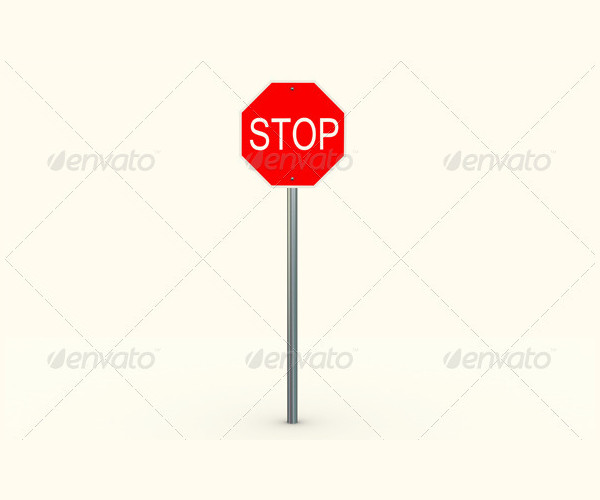
What Font Do Stop Signs Use . What font do stop signs use? There is no need to have a font to write stop on a sign. Any of these will do. Stop signs are almost always in “c series” width, like the one in op’s example. Highway gothic narrow (here on dafont}. Clearview is approved for use under a federal highway administration interim approval, but only for guide. Stop signs in the united states typically use a font called “highway gothic.” the federal highway administration (fhwa) adopted this font in the 1950s, which has since. A newer series of typefaces developed for use on guide signs is clearview. Traffic 02 (here on dafont}. It’s all from the american fhwa road sign fonts. Does anybody know what font’s used on the word “stop” on this stop sign?
There is no need to have a font to write stop on a sign. Stop signs in the united states typically use a font called “highway gothic.” the federal highway administration (fhwa) adopted this font in the 1950s, which has since. What font do stop signs use? It’s all from the american fhwa road sign fonts. Any of these will do. Clearview is approved for use under a federal highway administration interim approval, but only for guide. Does anybody know what font’s used on the word “stop” on this stop sign? Highway gothic narrow (here on dafont}. A newer series of typefaces developed for use on guide signs is clearview. Stop signs are almost always in “c series” width, like the one in op’s example.
What Font Do Stop Signs Use Stop signs are almost always in “c series” width, like the one in op’s example. Stop signs are almost always in “c series” width, like the one in op’s example. There is no need to have a font to write stop on a sign. Clearview is approved for use under a federal highway administration interim approval, but only for guide. Stop signs in the united states typically use a font called “highway gothic.” the federal highway administration (fhwa) adopted this font in the 1950s, which has since. Traffic 02 (here on dafont}. What font do stop signs use? A newer series of typefaces developed for use on guide signs is clearview. Does anybody know what font’s used on the word “stop” on this stop sign? It’s all from the american fhwa road sign fonts. Highway gothic narrow (here on dafont}. Any of these will do.
Stop Signs Printable Templates (Free PDF Download) What Font Do Stop Signs Use A newer series of typefaces developed for use on guide signs is clearview. Clearview is approved for use under a federal highway administration interim approval, but only for guide. Any of these will do. Highway gothic narrow (here on dafont}. There is no need to have a font to write stop on a sign. Does anybody know what font’s used. What Font Do Stop Signs Use.
Pin on Interesting! What Font Do Stop Signs Use It’s all from the american fhwa road sign fonts. What font do stop signs use? Stop signs are almost always in “c series” width, like the one in op’s example. A newer series of typefaces developed for use on guide signs is clearview. Any of these will do. Highway gothic narrow (here on dafont}. Does anybody know what font’s used. What Font Do Stop Signs Use.
Buy Stop Font To Feel City Light Typography To The Fullest What Font Do Stop Signs Use Any of these will do. Highway gothic narrow (here on dafont}. Stop signs in the united states typically use a font called “highway gothic.” the federal highway administration (fhwa) adopted this font in the 1950s, which has since. It’s all from the american fhwa road sign fonts. What font do stop signs use? Stop signs are almost always in “c. What Font Do Stop Signs Use.
Two Types Of Stop Signs TwoTypesOfStopSigns Toronto Ontario YouTube What Font Do Stop Signs Use Any of these will do. What font do stop signs use? Does anybody know what font’s used on the word “stop” on this stop sign? A newer series of typefaces developed for use on guide signs is clearview. Stop signs are almost always in “c series” width, like the one in op’s example. There is no need to have a. What Font Do Stop Signs Use.
Sinais De Transito De Stop What Font Do Stop Signs Use A newer series of typefaces developed for use on guide signs is clearview. What font do stop signs use? It’s all from the american fhwa road sign fonts. There is no need to have a font to write stop on a sign. Does anybody know what font’s used on the word “stop” on this stop sign? Stop signs in the. What Font Do Stop Signs Use.
Stop Sign MUTCD Regulations Universal Signs & Accessories What Font Do Stop Signs Use Does anybody know what font’s used on the word “stop” on this stop sign? What font do stop signs use? Any of these will do. Stop signs are almost always in “c series” width, like the one in op’s example. It’s all from the american fhwa road sign fonts. A newer series of typefaces developed for use on guide signs. What Font Do Stop Signs Use.
Stop sign icon vector design on white background 4364632 Vector Art at What Font Do Stop Signs Use Highway gothic narrow (here on dafont}. Does anybody know what font’s used on the word “stop” on this stop sign? A newer series of typefaces developed for use on guide signs is clearview. Clearview is approved for use under a federal highway administration interim approval, but only for guide. Stop signs are almost always in “c series” width, like the. What Font Do Stop Signs Use.
Stop using this font. Please!!!! Art design, Fonts, Design What Font Do Stop Signs Use Clearview is approved for use under a federal highway administration interim approval, but only for guide. Any of these will do. It’s all from the american fhwa road sign fonts. Highway gothic narrow (here on dafont}. What font do stop signs use? There is no need to have a font to write stop on a sign. A newer series of. What Font Do Stop Signs Use.
This stop sign's font with serifs mildlyinteresting What Font Do Stop Signs Use Stop signs are almost always in “c series” width, like the one in op’s example. Any of these will do. Highway gothic narrow (here on dafont}. Traffic 02 (here on dafont}. What font do stop signs use? There is no need to have a font to write stop on a sign. It’s all from the american fhwa road sign fonts.. What Font Do Stop Signs Use.